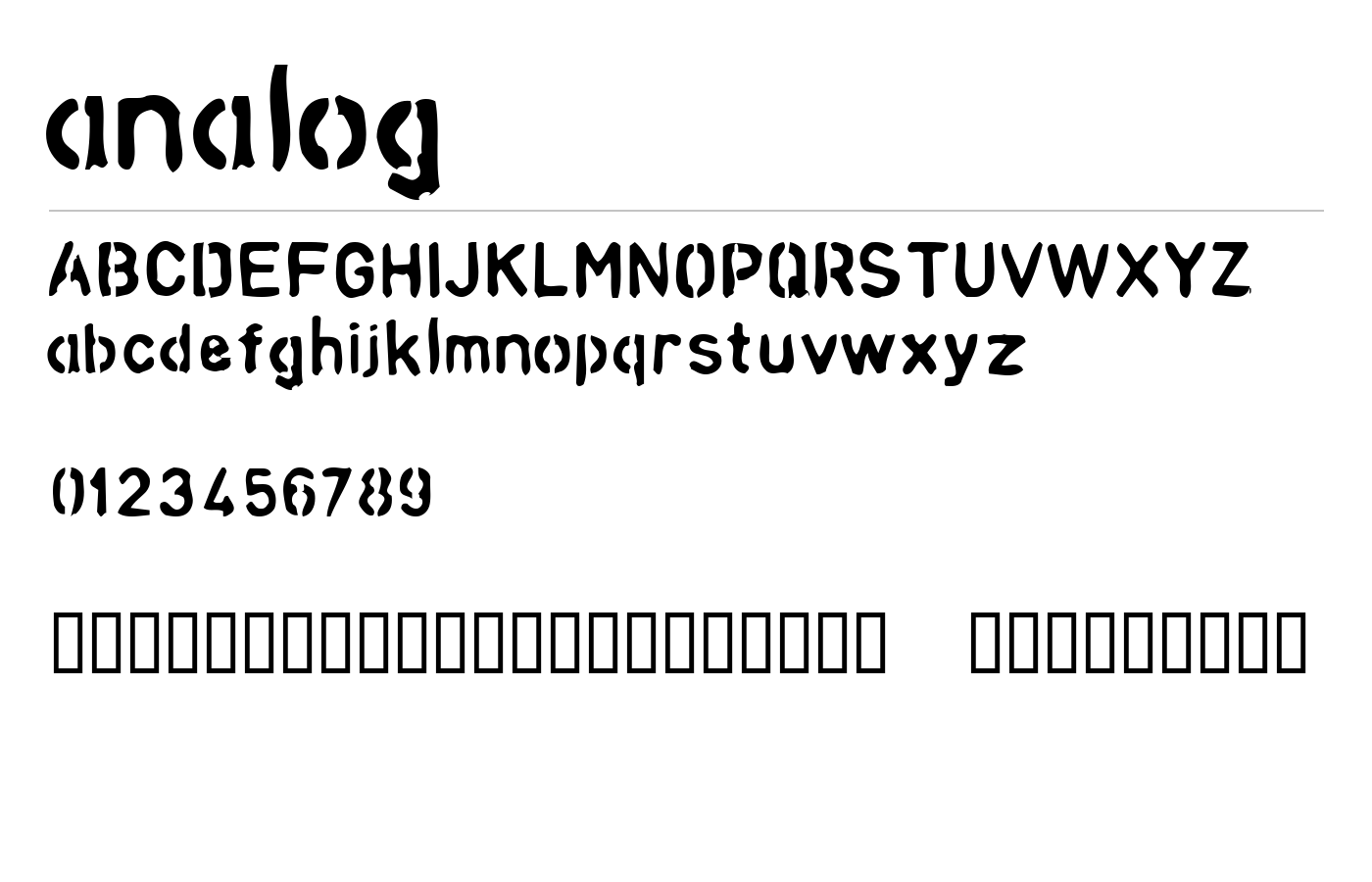
Analog is a distinctive sans serif font with an irregular, hand-cut appearance that adds a quirky, organic charm. Its slightly condensed letterforms, medium contrast, and uneven edges lend a vintage, tactile feel, making it ideal for creative headlines, posters, and branding with a handcrafted or retro vibe. This font works well where a unique, artistic touch is desired to stand out and evoke personality.
analog Font
About analog Font